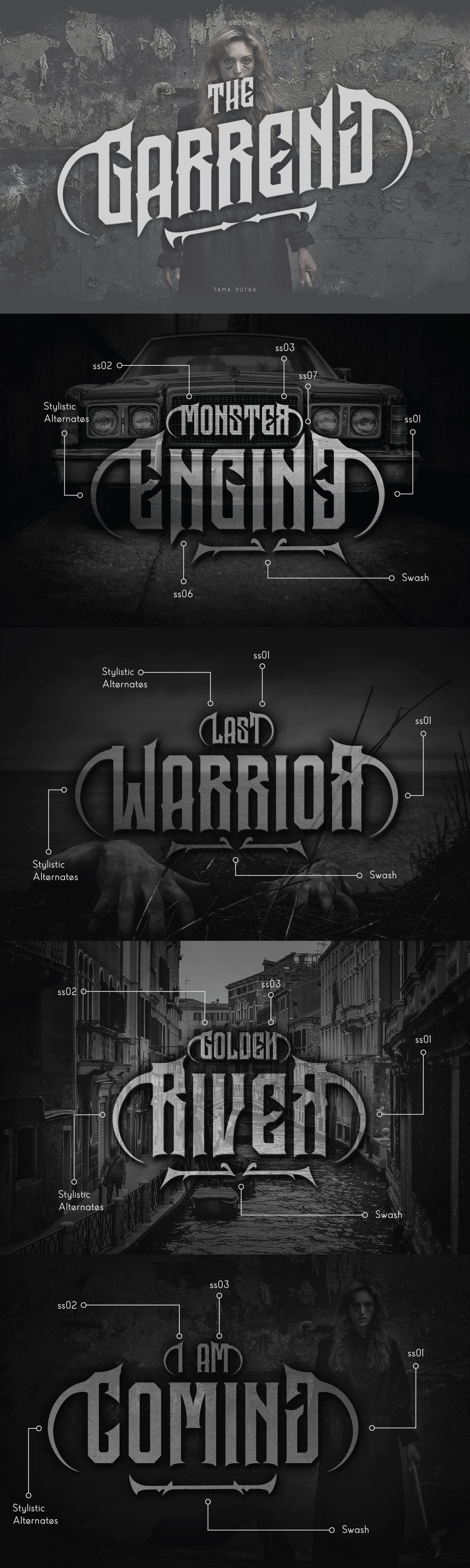
Garreng Decorative Typeface
Garreng Typeface
Garreng is a typeface inspired from gothic style.
It includes a full set of uppercase and lowercase letters as well as multi-lingual and currency support, numerals, punctuation, alternates, ligatures and some extra glyphs.
- Character Set A-Z (Uppercase & Lowercase)
- ss01, ss02, ss03, ss04, ss05, ss06, ss07, ss08, ss09
Garreng typeface is suitable font for creating beautiful things and many creative work.